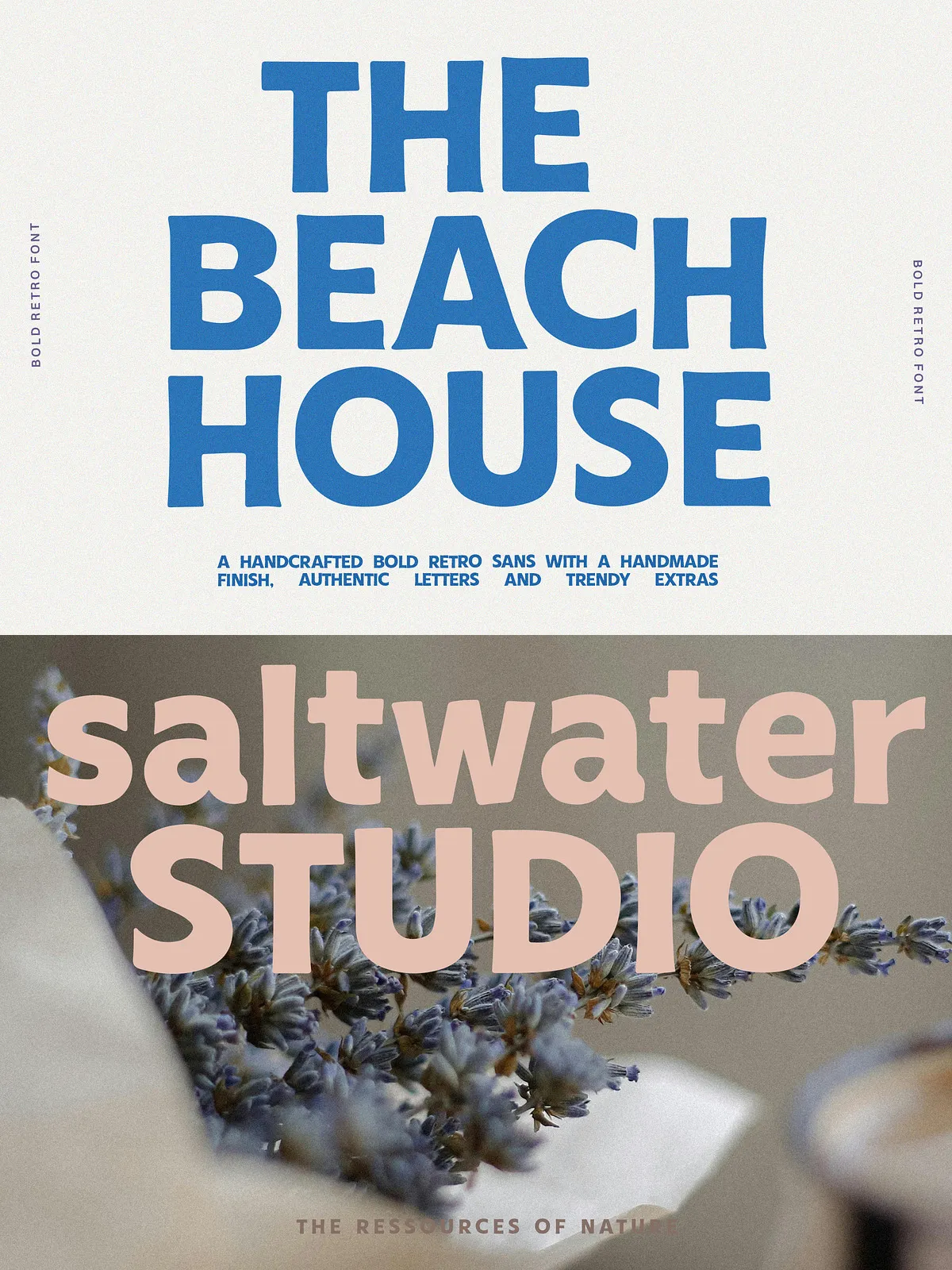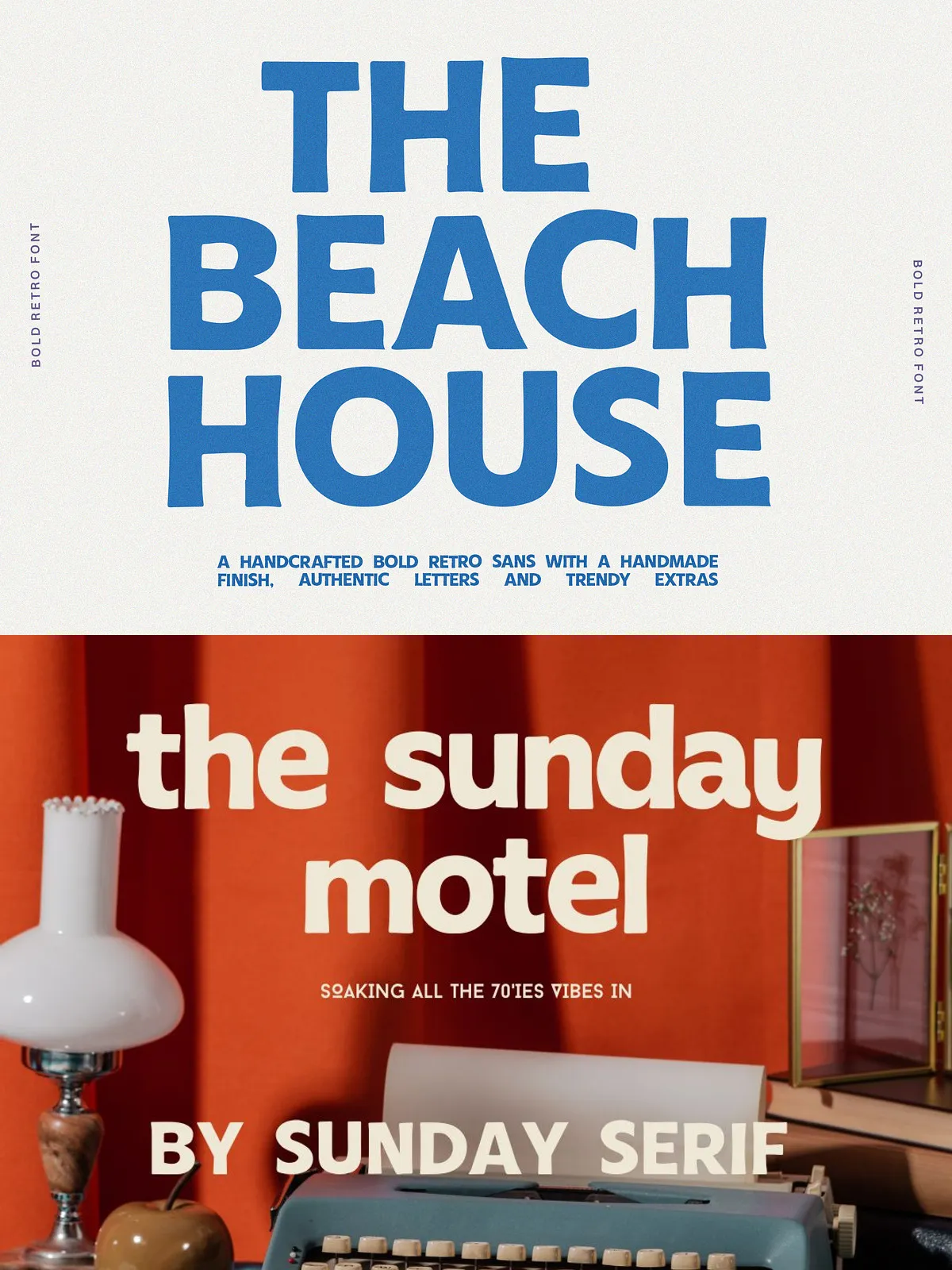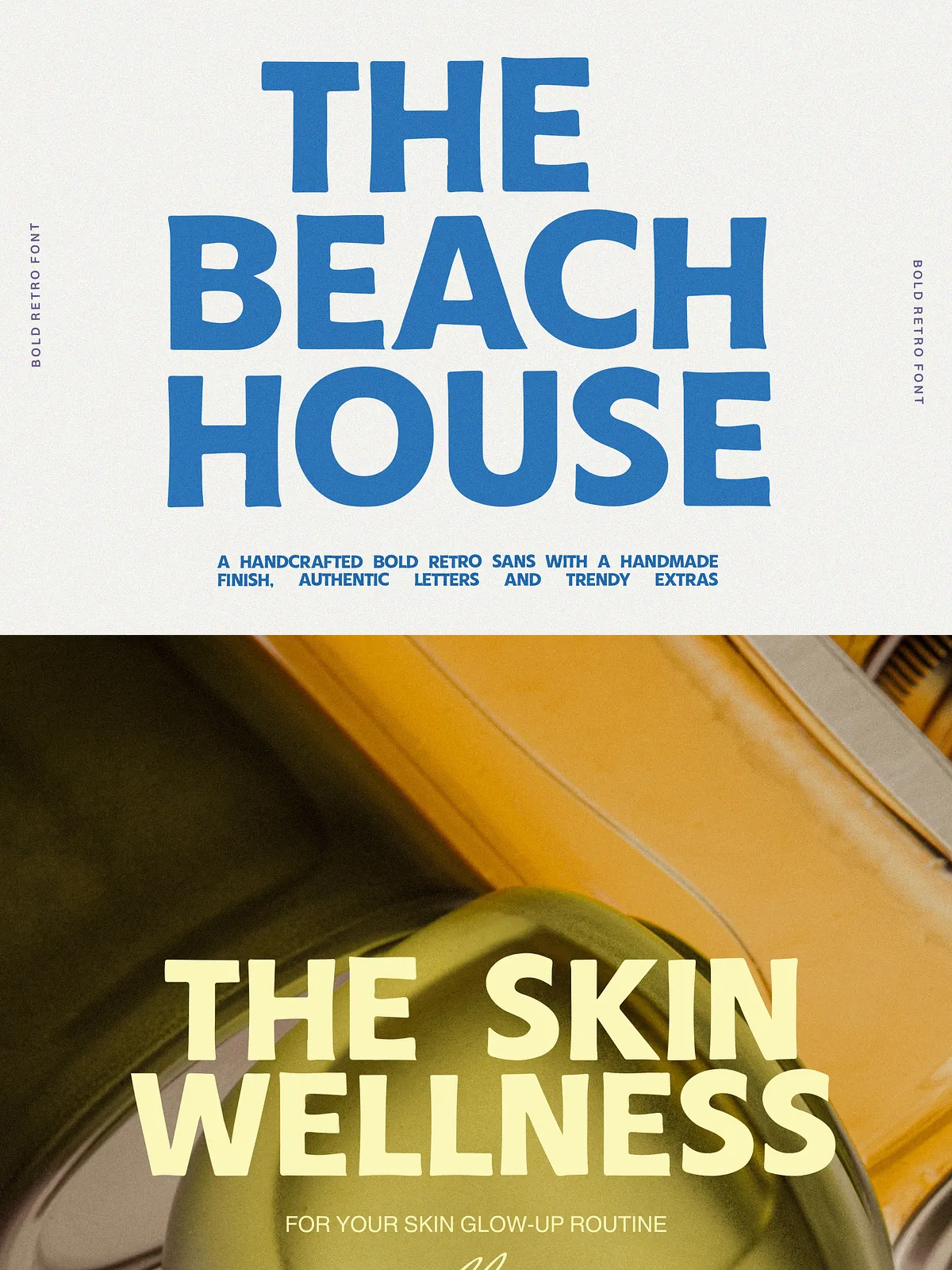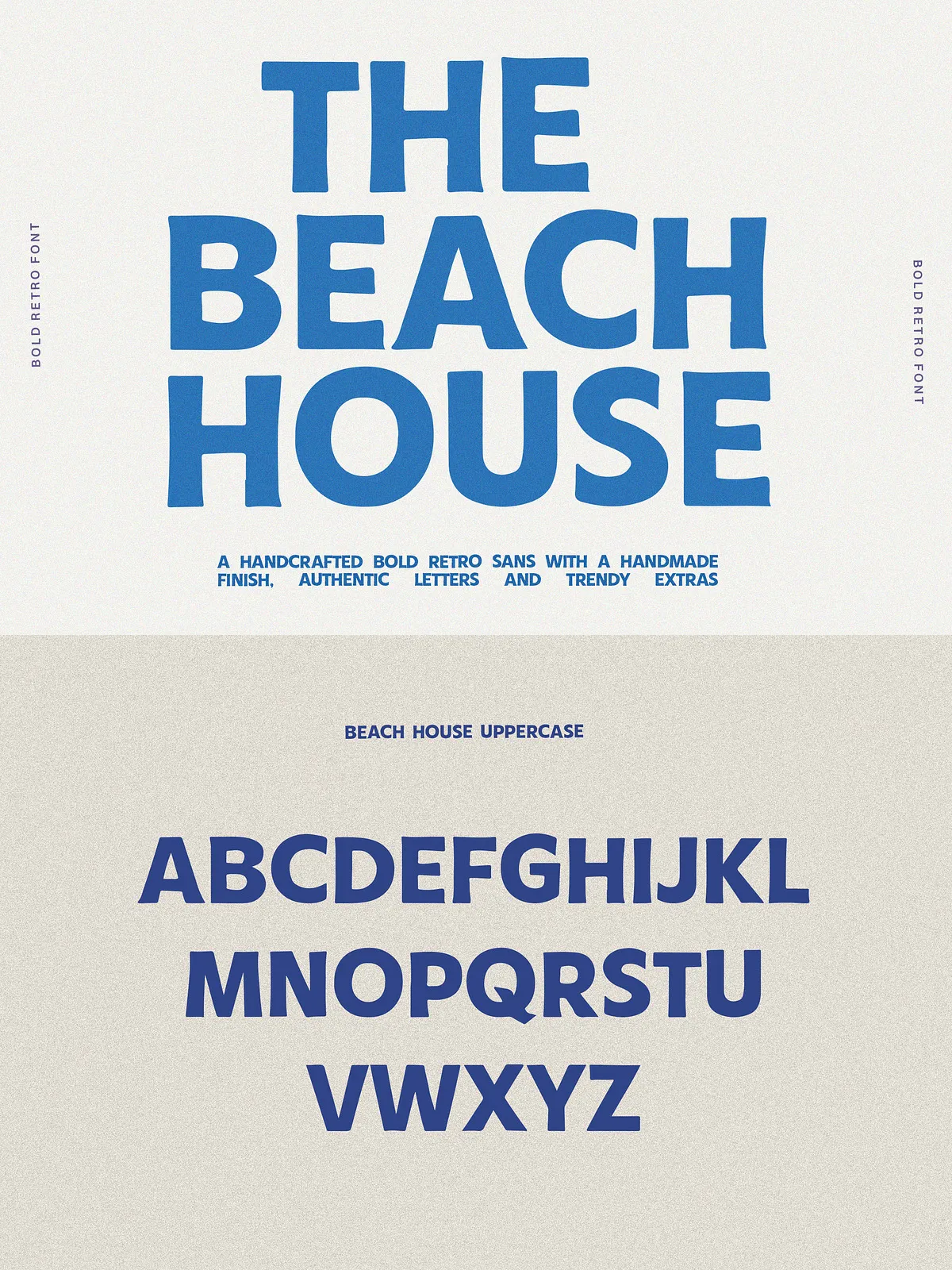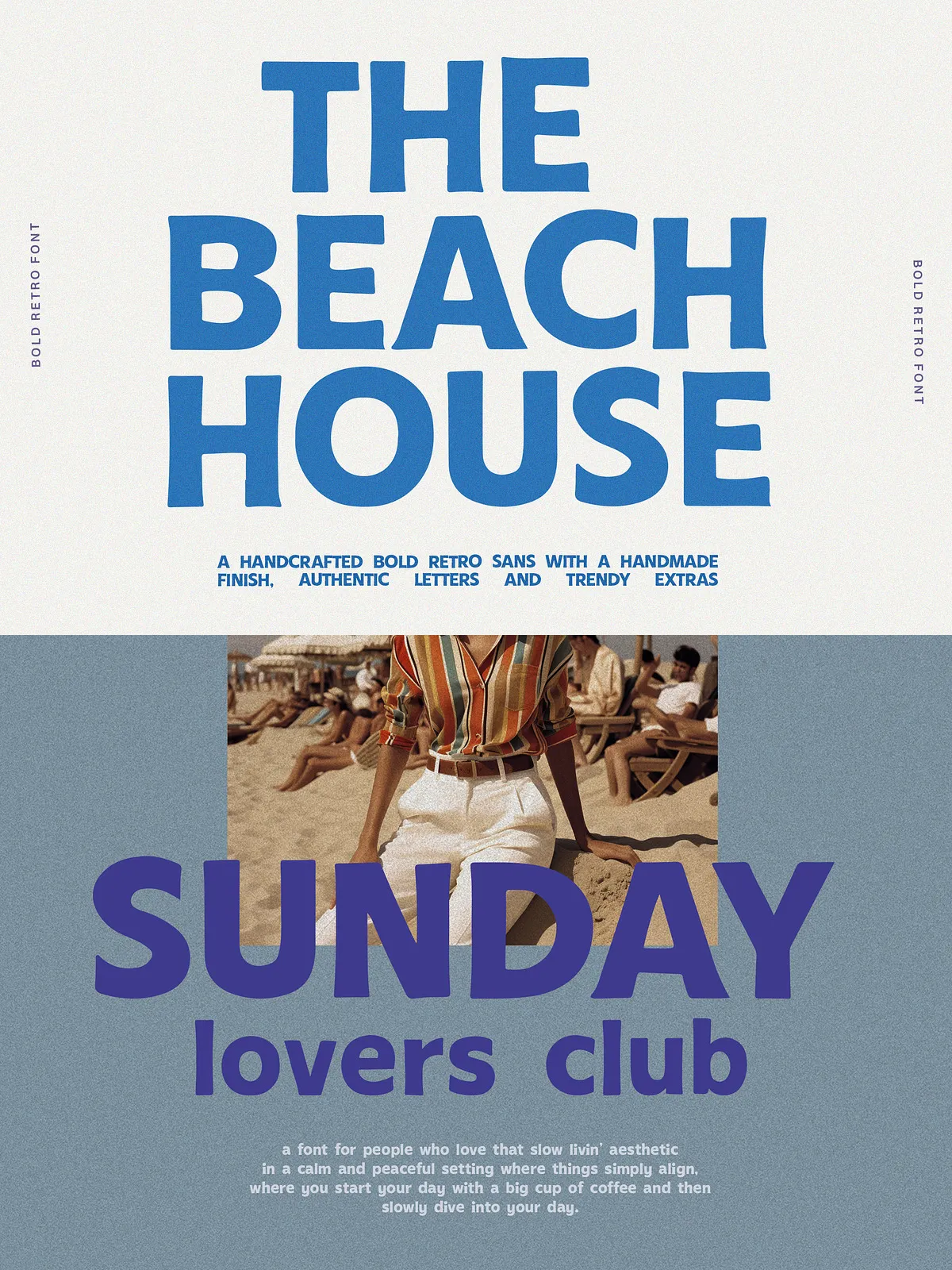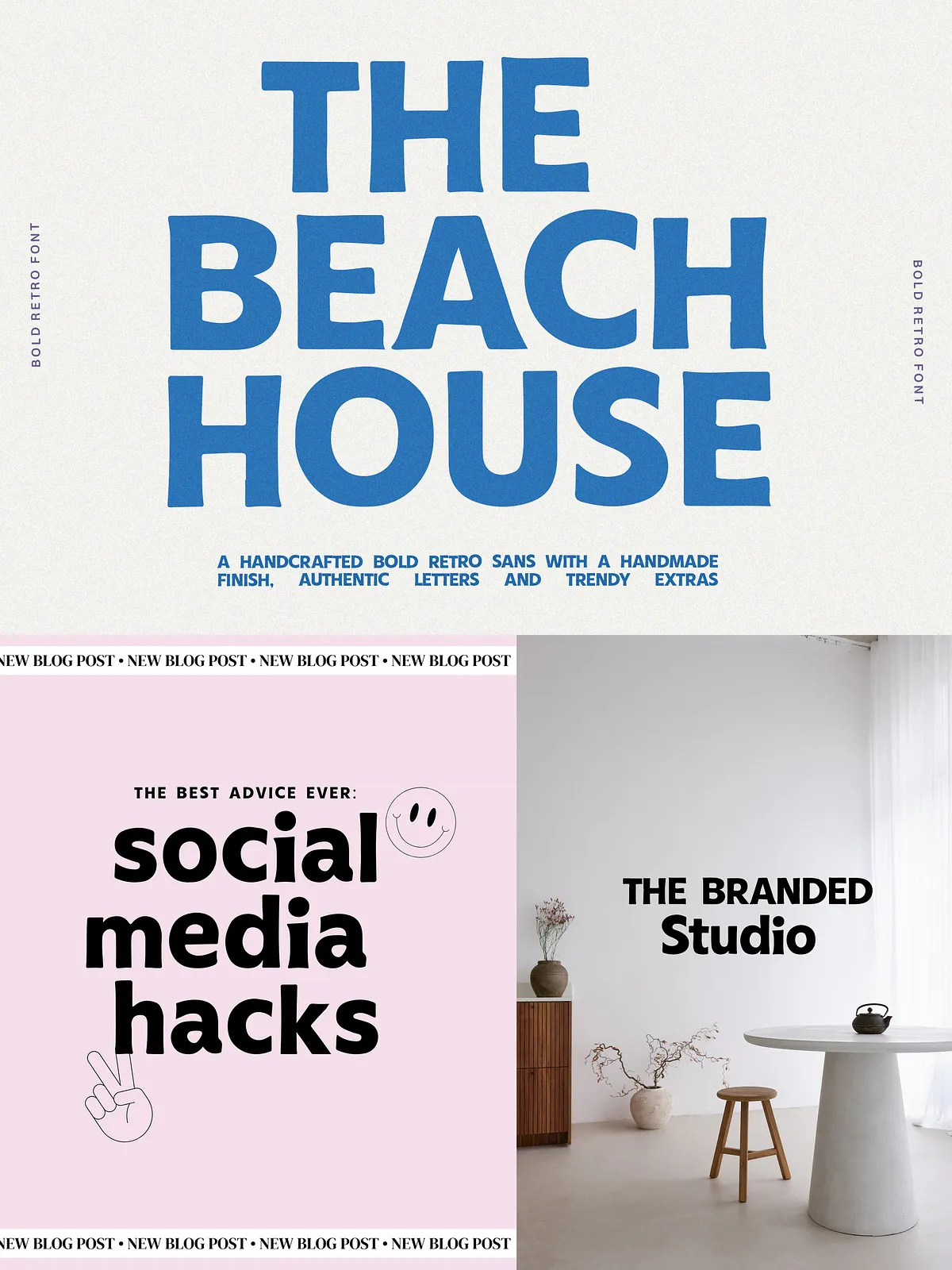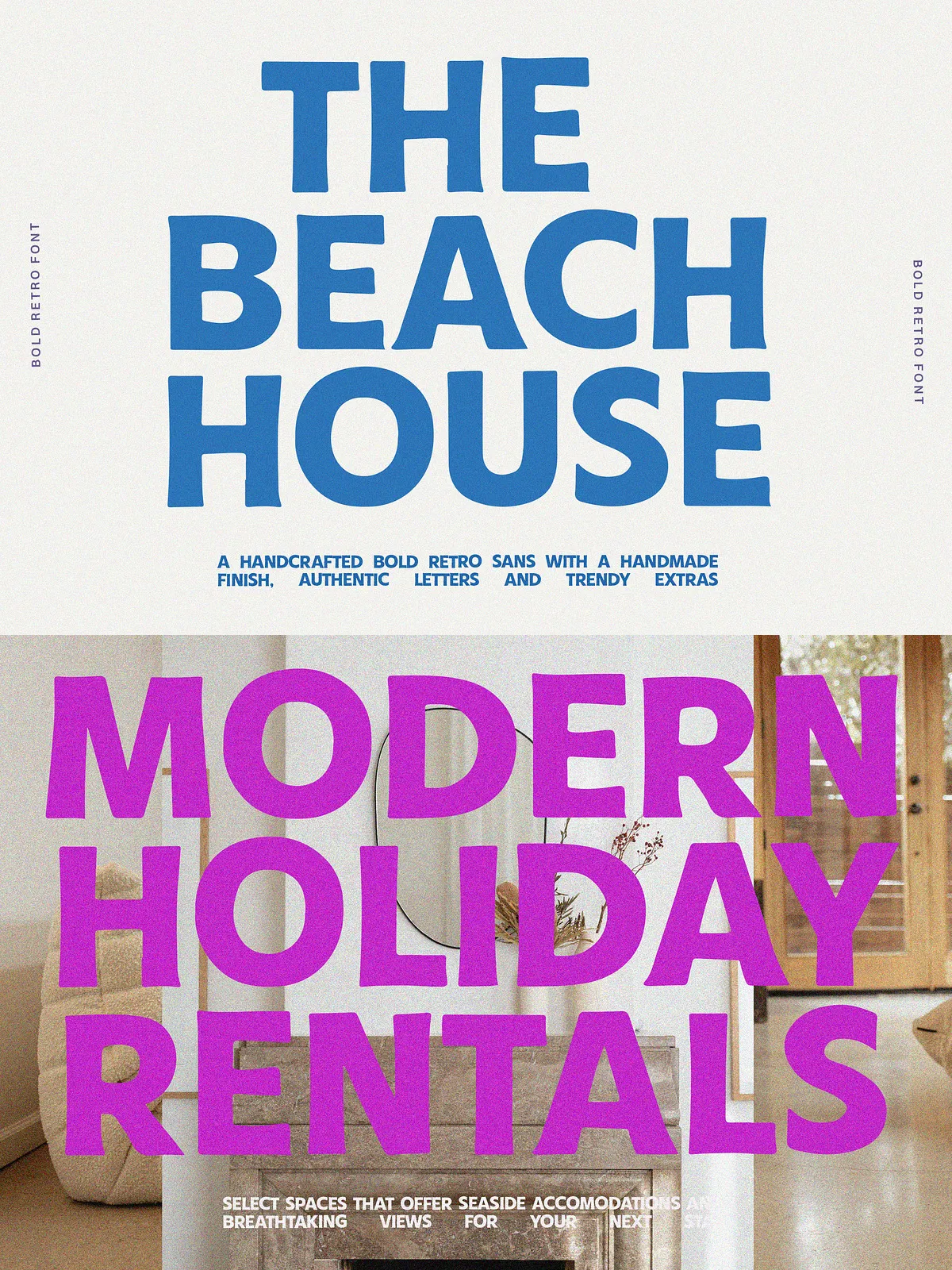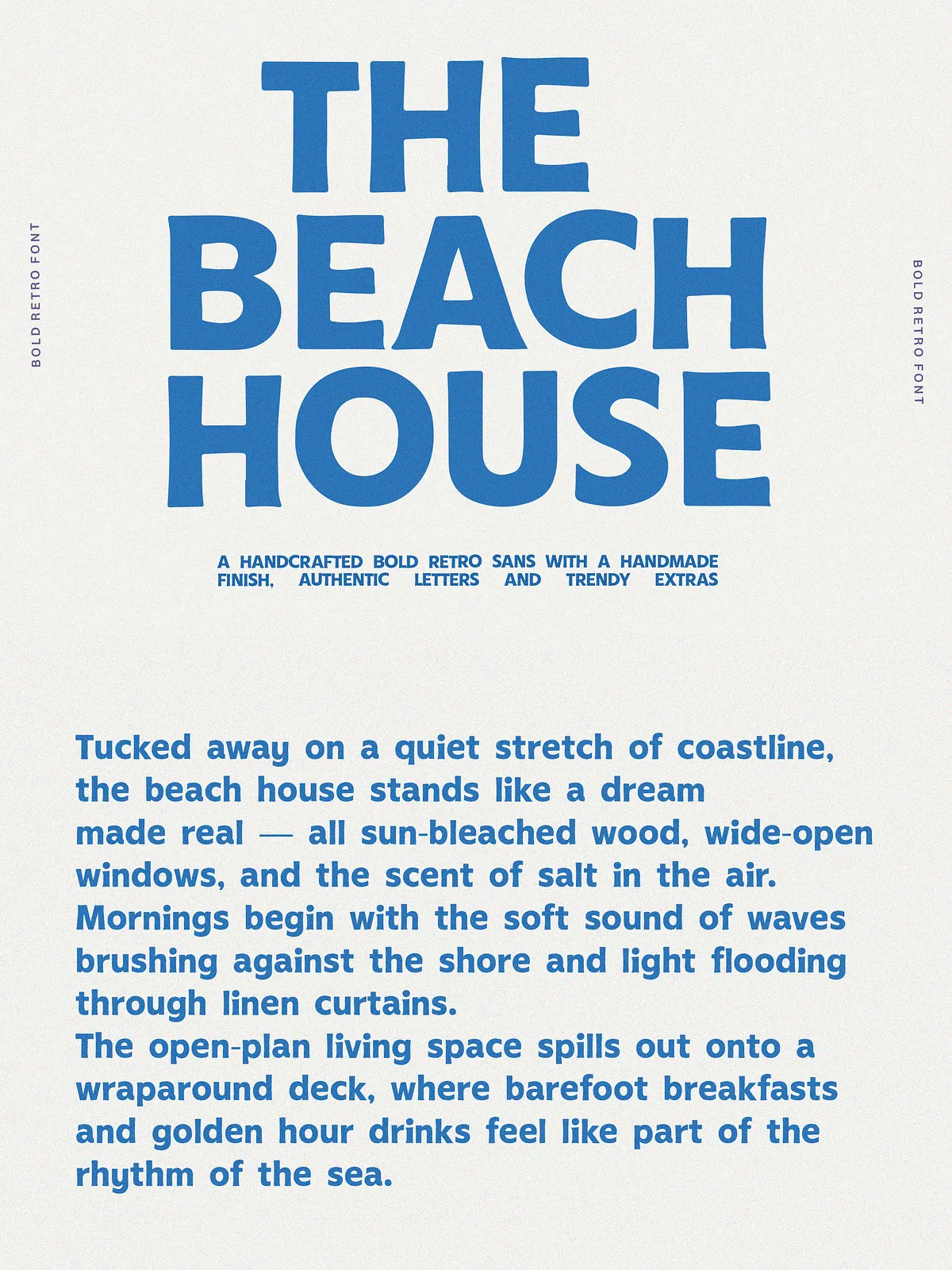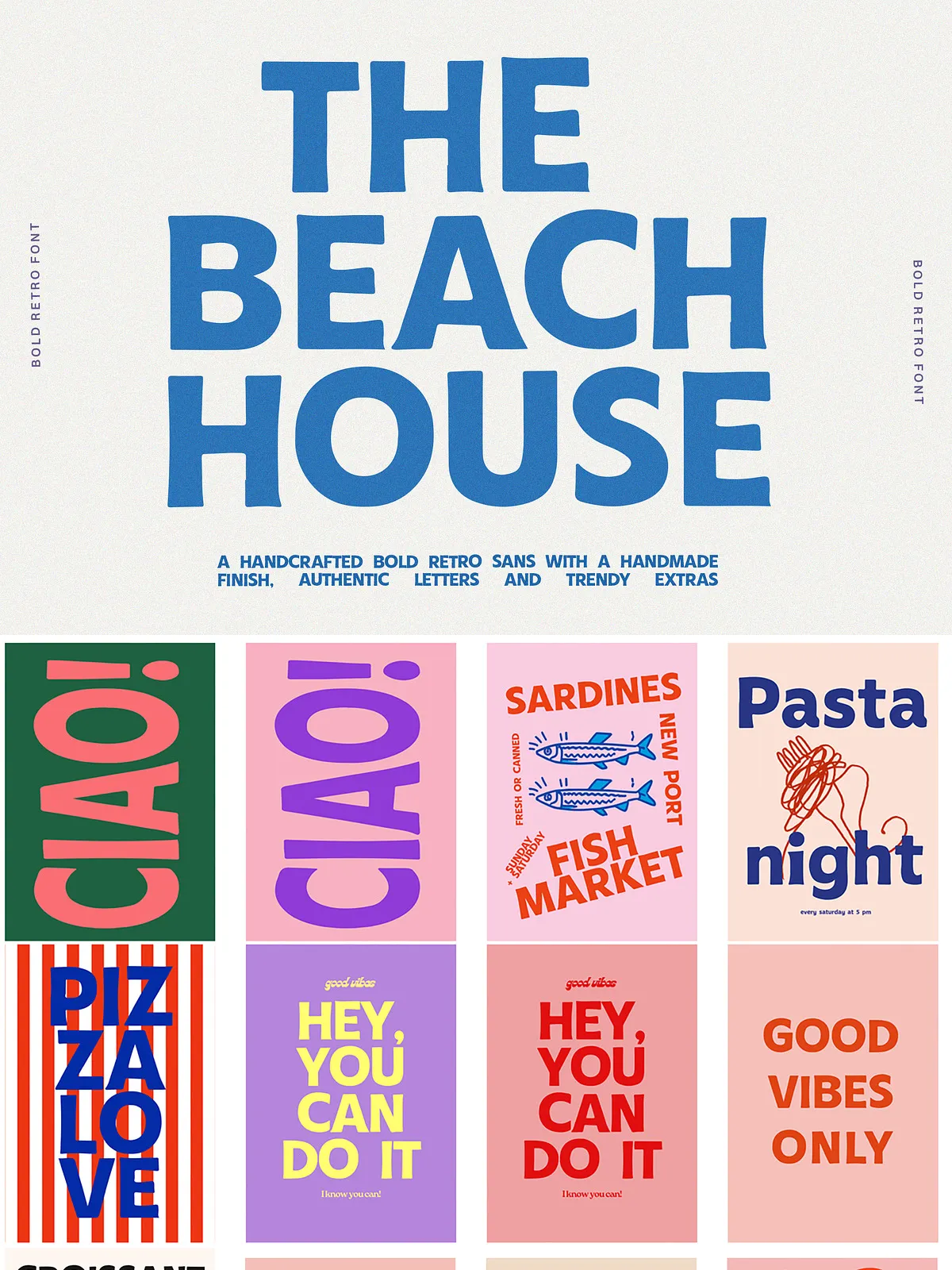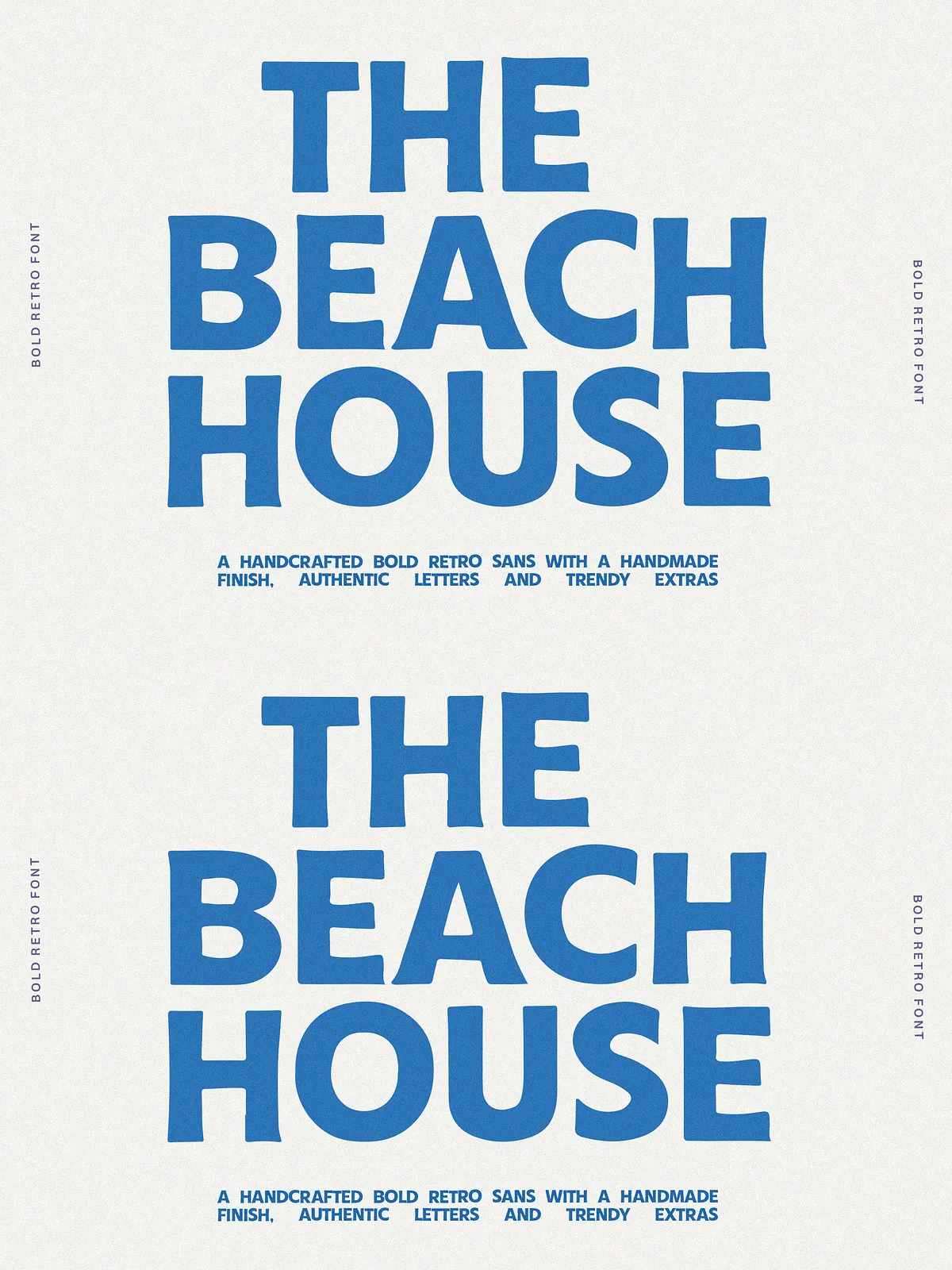
Introducing a brand new, bold and trendy Sans with an authentic handcrafted finish!
This modern font was made for the unapologetically bold creative. Clean yet perfectly imperfect, this fresh sans delivers an eye-catching, on-trend look in seconds. Think editorial flair meets typography poster aesthetics, wrapped in a nostalgic, retro-inspired sans serif. Ideal for scroll-stopping headlines and sleek, modern brands that need just the right touch of handmade charm.